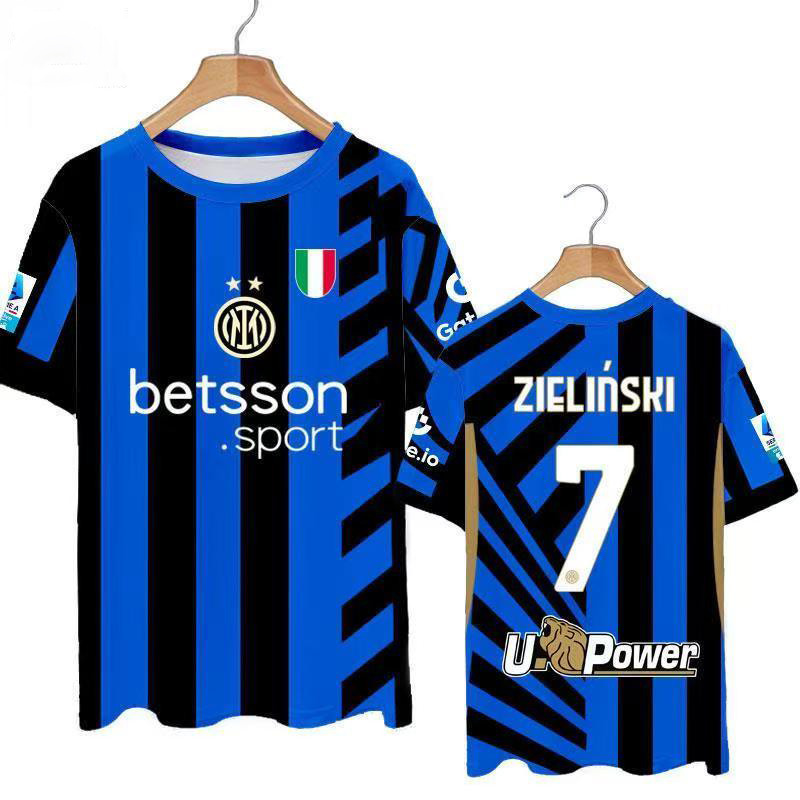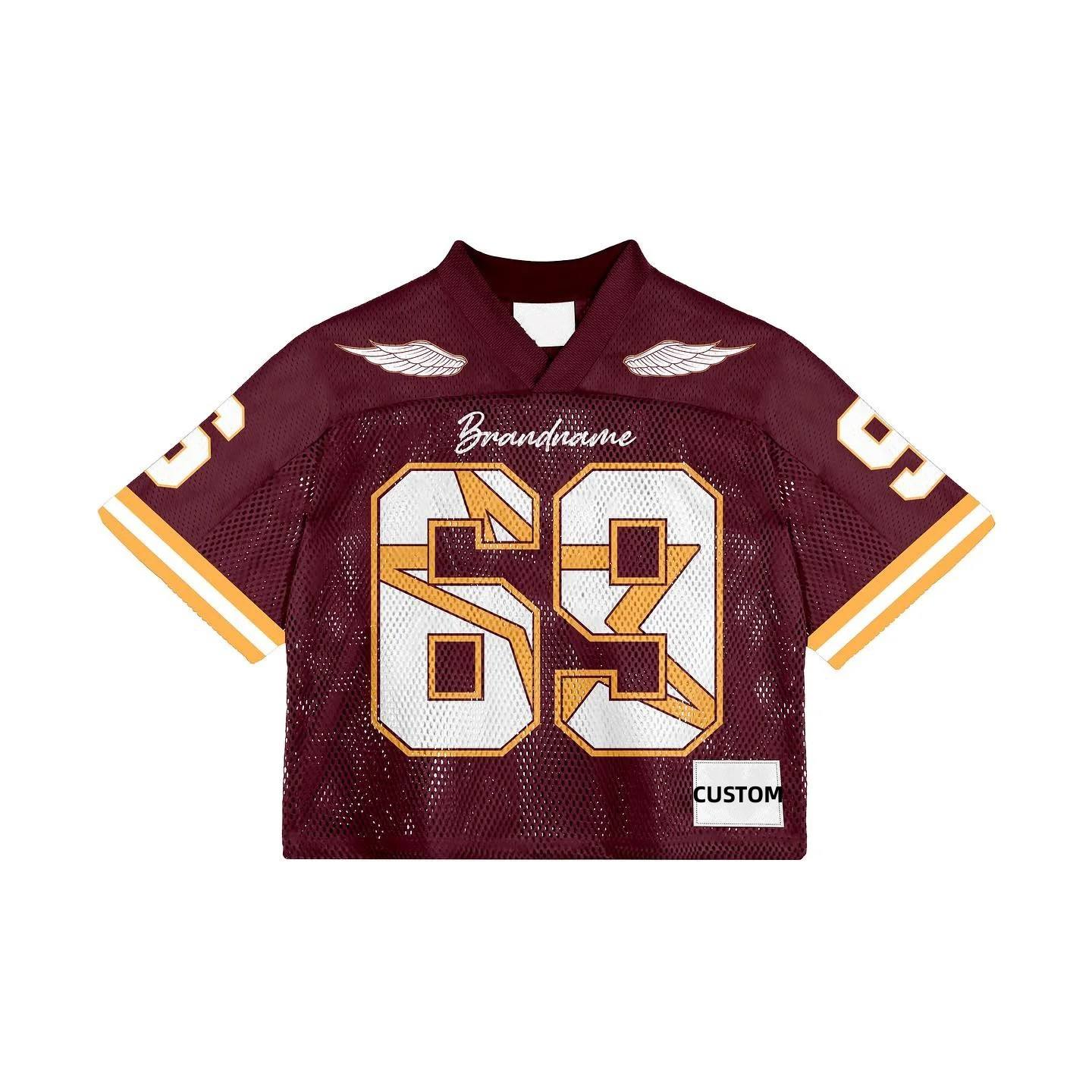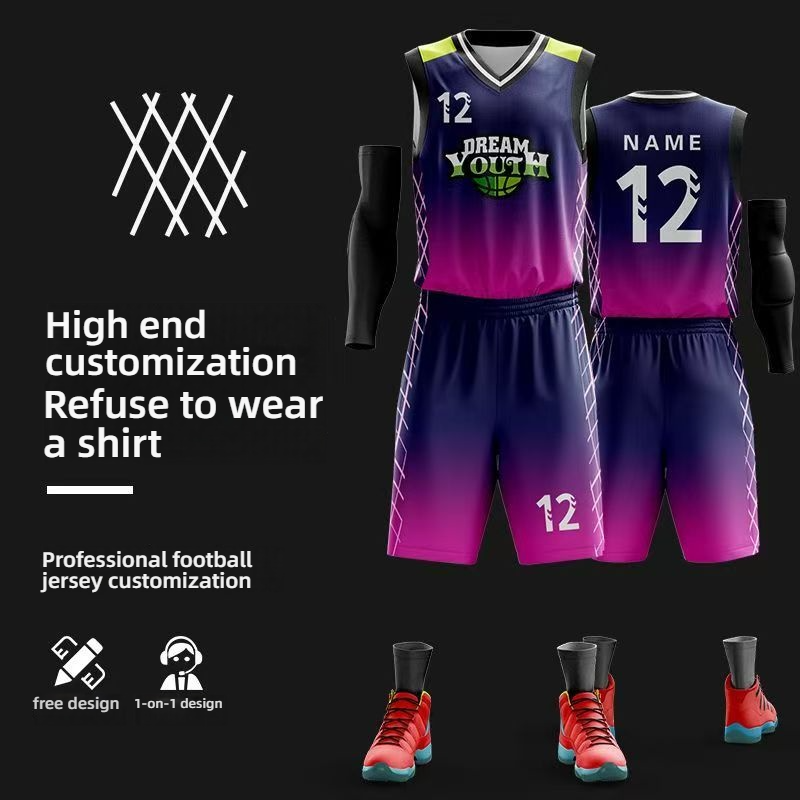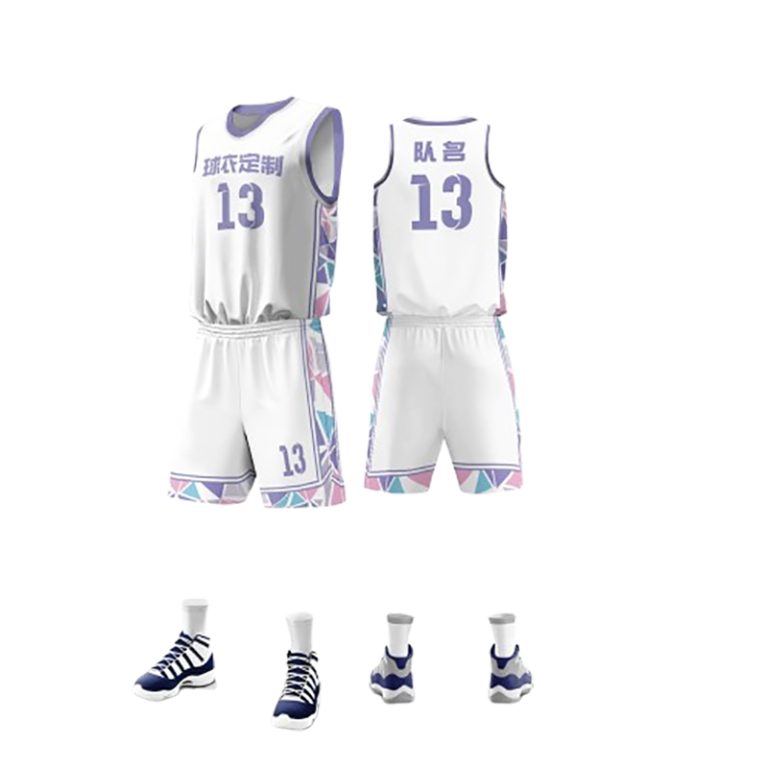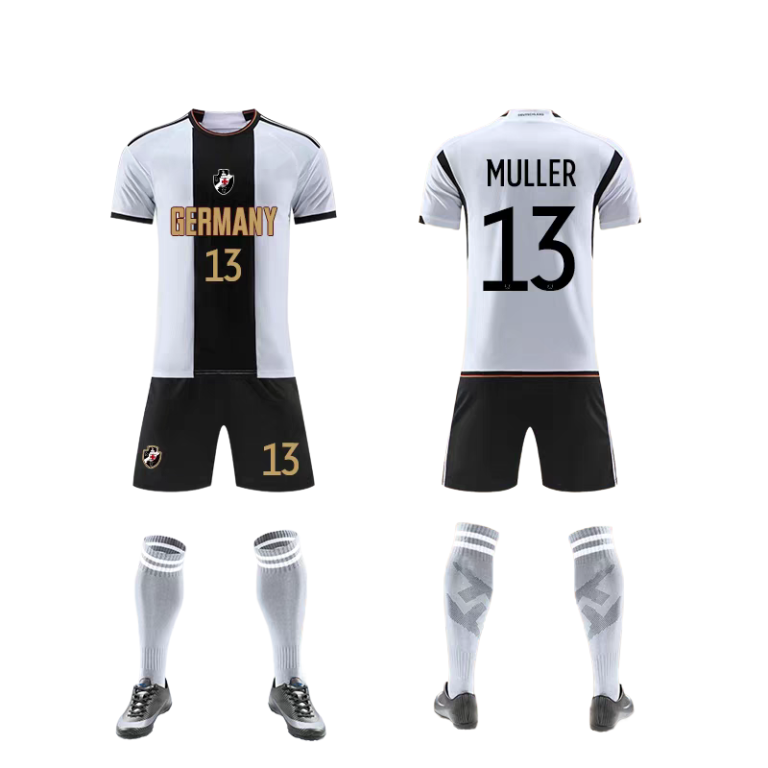
Font for Sports Jersey: IT Integration with Q and X Dynamics
In trendy an increasing number of vibrant sports culture, the jersey isn’t always most effective the athletes’ uniform but additionally a service of brand image and crew spirit. Typography, as an important element in jersey design, immediately influences the general visual impact and carrying enjoy of the jersey. this text will explore the combination of typography and jersey overall performance, analyzing its significance in practical programs.
The importance of font selection for sports team jerseys
The importance of choosing the font for sports team jerseys cannot be overlooked, as it serves as a crucial carrier for athletes to showcase their style and team spirit. Here are several aspects to elaborate on:
Identification and RecognizabilityThe font on sports jerseys is a visual identifier for brands and teams, directly affecting how spectators and fans recognize the team. A unique and easily recognizable font design can quickly attract attention, enhance the team’s recognizability, and help boost the brand image and market influence.
Functionality and PracticalityThe font on sports jerseys must not only be aesthetically pleasing but also functional in the context of athletic events. The font size should be moderate, with clear lines, making it easy to read during games, which is crucial for referees, coaches, and spectators. Appropriate font design can reduce misjudgments or communication breakdowns due to blurred fonts.
Comfort and DurabilityThe material and design of the font on jerseys should consider the comfort and durability of wearing them. During physical activity, jerseys are frequently rubbed against, and the font design should avoid overly complex or sharp lines to prevent wear or discomfort. Weather resistance is also a consideration; the font should remain clear and legible under various weather conditions.
Artistry and Cultural ConnotationThe design of the font on jerseys is a blend of art and sports culture. A creative font design can reflect the unique style and regional culture of the team, becoming a symbol of the team’s history and traditions. Artistic font designs can enhance the overall beauty of the jersey and become a focus for fans’ collections.
Marketing and Brand PromotionThe application of font design on jerseys is also part of brand marketing. A unique font can serve as a highlight for brand promotion, conveying brand values through jerseys and enhancing consumers’ brand loyalty and identification.
Viewer Experience and Emotional ResonanceThe font design on jerseys affects the viewer’s experience of watching games. An aesthetically pleasing and easy-to-read font can make fans more engaged in the game, enhancing the fun of watching. Moreover, font design can evoke emotional resonance among fans, becoming a topic of discussion among them.
Era Development and Innovation TrendsWith the development of the times, font design is also constantly evolving. New design trends and technological applications (such as 3D printing and digital printing) provide more possibilities for jersey font design. Keeping pace with the times and innovating in font design can make jerseys more contemporary and technologically advanced.
In summary, the importance of choosing sports jersey fonts is evident in multiple layers, including identification, functionality, comfort, artistry, marketing, viewer experience, and the development of the era. A carefully designed font can bring multiple values to teams and brands.
Font Design Principles Applied in Soccer jerseys
The application of typography in sports uniforms isn’t most effective approximately visible aesthetics but also carries brand way of life, the spirit of sports, and practical necessities. the subsequent elaborates on the software of typography design principles in uniforms from numerous elements:
Simplicity: Typography in sports activities uniforms must aim for clarity and ease, heading off overly complicated strokes and decorations. easy fonts are easy to apprehend and keep a clean visual effect at excessive speeds, at the same time as also lowering the burden of the uniform and enhancing the sporting experience of athletes.
readability: Fonts on uniforms ought to ensure top readability. design considerations need to consist of the thickness of the font, spacing, and line spacing to make sure that names, numbers, and different facts are absolutely recognizable from a distance and at excessive speeds.
three. Personalization: Typography design ought to mirror the group’s character and characteristics. precise font shapes, colour mixtures, or the addition of special symbols can make the uniform more recognizable, strengthening the group’s iconic photo.
shade Coordination: The coloration of the typography have to be harmonious with the principle coloration of the uniform, neither too nor missing in persona. commonly, font colours that are much like or comparison with the uniform colour are used to achieve visual concord and unity.
these developments replicate the varied improvement of sports jersey typography layout, which meets each purposeful needs and aesthetic and emotional hobbies. Designers are continuously exploring new substances, new tactics, and new principles, making sports jerseys extra visually attractive and presenting clients with greater picks.